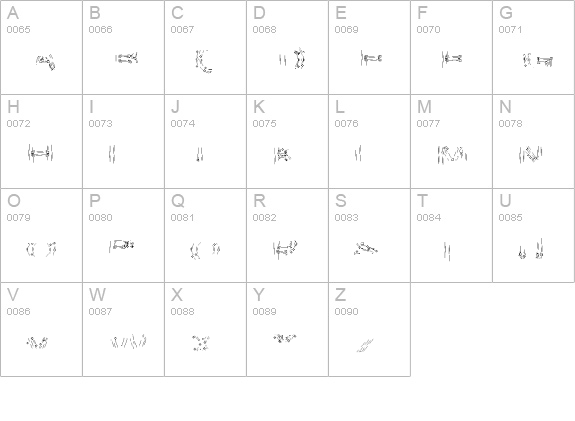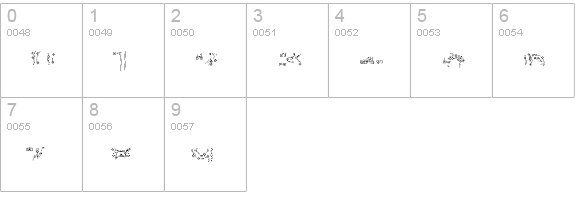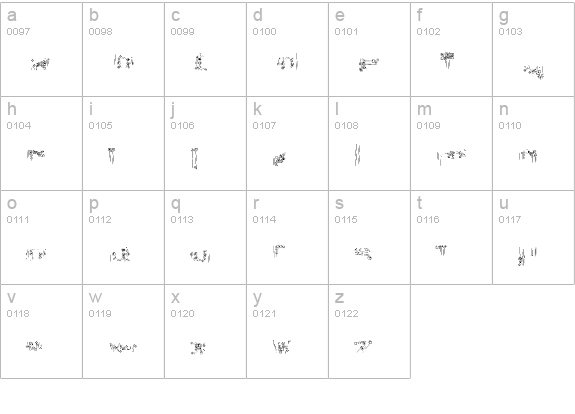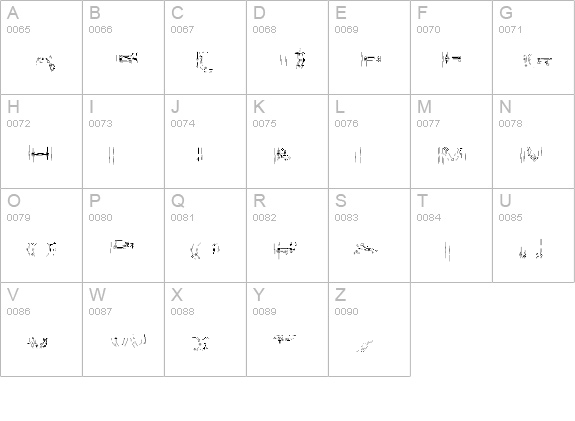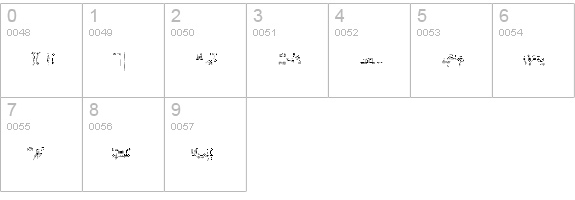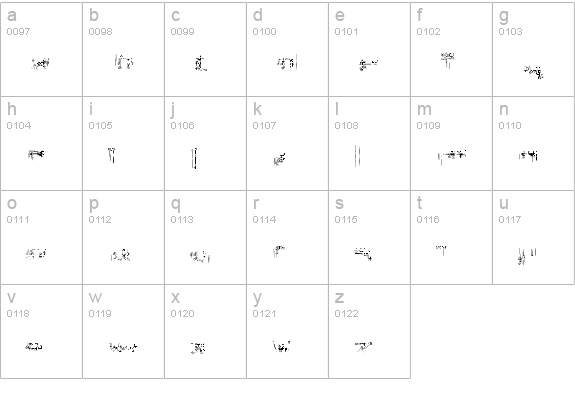
Dotty-2PartTwo Font Details
Dotty-2PartTwo font is a whimsical and playful typeface that will add a touch of charm to any design project. Featuring rounded edges and a unique dotted pattern, this font exudes a sense of fun and creativity. Perfect for children's books, posters, and branding materials, Dotty-2PartTwo will bring a sense of joy to your designs. The best part? Dotty-2PartTwo font is available for free download at FontsMarket.com. Simply visit the website to get your hands on this delightful font and start incorporating it into your projects today. Let your creativity shine with Dotty-2PartTwo font and watch your designs come to life with its playful personality.